10+ Best Neon Fonts to Make Your Design Glow and Pop
Neon typography blends retro charm with modern edge. Explore 10+ neon fonts designed to make your text glow, pop, and capture attention in posters, branding, and digital visuals.
Neon signs have illuminated our world since the early 20th century. Originating in France, their vibrant glow and bold colors soon lit up the streets of major cities such as New York and Paris. Striking without being overwhelming and nostalgic without feeling outdated, neon instantly gives a design the atmosphere of a city at midnight.
Today, neon signage is widely used for both commercial and personal purposes, adding character, style, and personality to any space. Choosing the right neon font can transform ordinary text into a glowing focal point. With the right typeface, retro charm meets digital precision, creating authentic visuals inspired by the unmistakable energy of the 1980s. A well-chosen neon font truly makes all the difference.
If you are looking for the best neon fonts, this article highlights a curated selection from Sensatype Studio, focusing on typefaces designed to create luminous, eye-catching designs. For graphic designers and creatives alike, neon typography remains a powerful and expressive way to communicate ideas and emotion. Even today, these fonts continue to shine in popularity and relevance.
The Top 10 Best Neon Fonts
1. Newon – Modern Neon Light Font
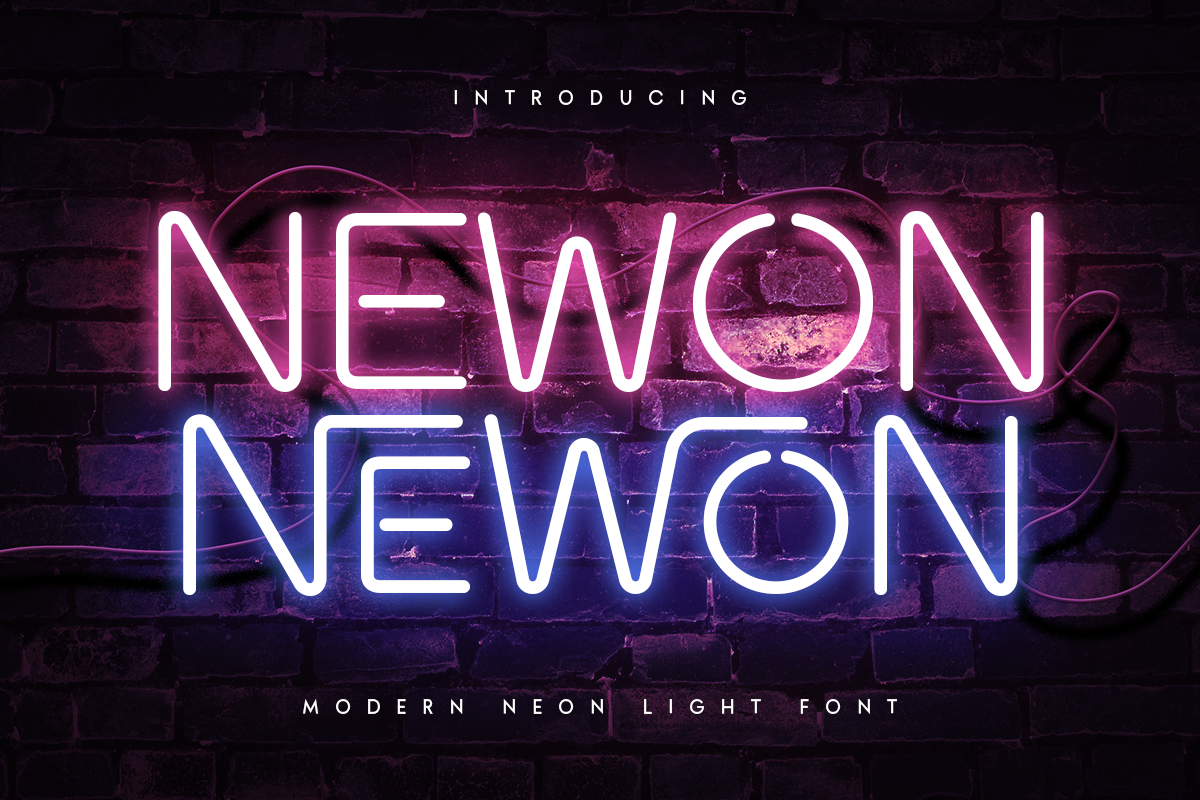
Newon is a unique modern neon light font that adds a glowing touch to your typography projects. Featuring floating letterforms and a variety of ligatures, Newon is ideal for headlines, titles, and standout typographic applications. If you want to see your chosen font in action before committing to a full design, Magic Hour AI image generator lets you generate neon-styled visuals from a text prompt in seconds.
2. Clubing – Neon Light Party Font
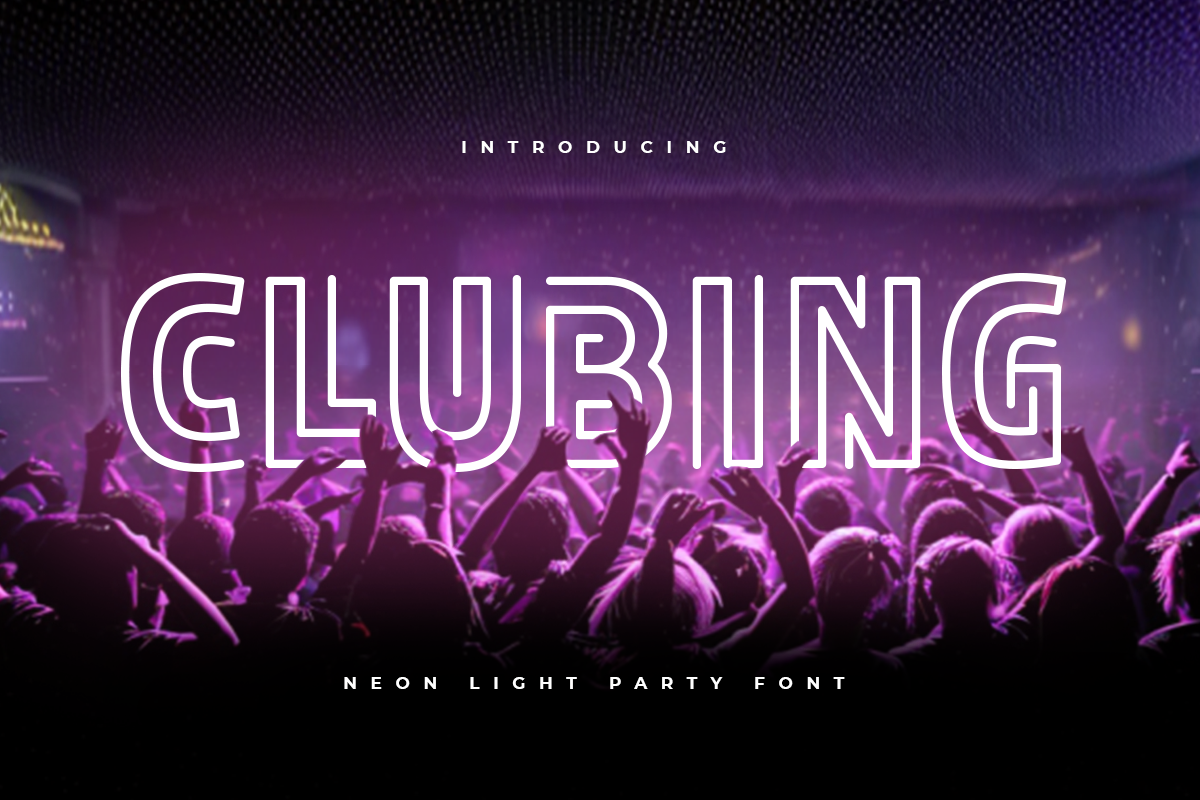
Clubing is a sci-fi inspired neon font filled with futuristic energy, perfect for creating bold and vibrant designs. It works especially well for natural neon visuals, striking graphic content, dynamic headlines, and lively posters.
3. Flare – Neon Light Party Font
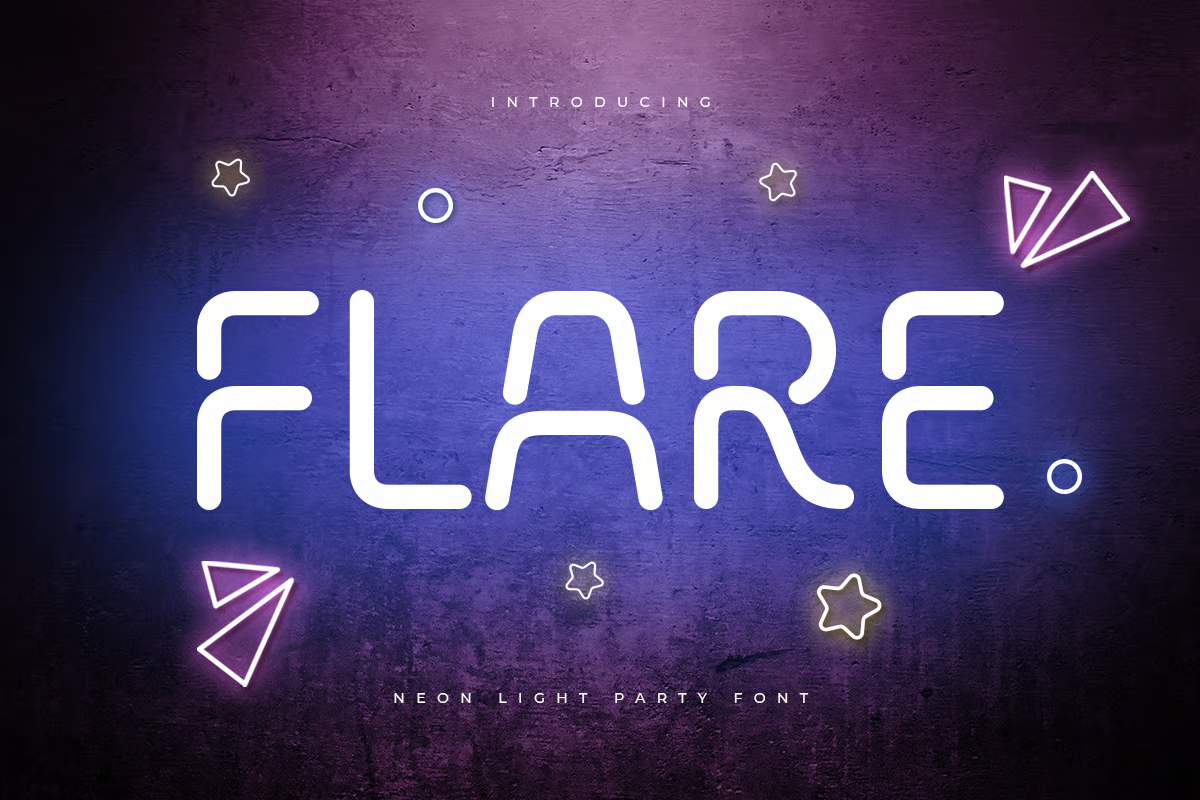
Flare is a captivating neon font with a bold yet elegant design. Its balance of strength and refinement makes it perfect for shop signage and event banners. Designed to deliver a stylish glow effect without being overwhelming, Flare offers a clean retro neon aesthetic that performs beautifully in bold usage.
4. Route – Neon Light Party Font
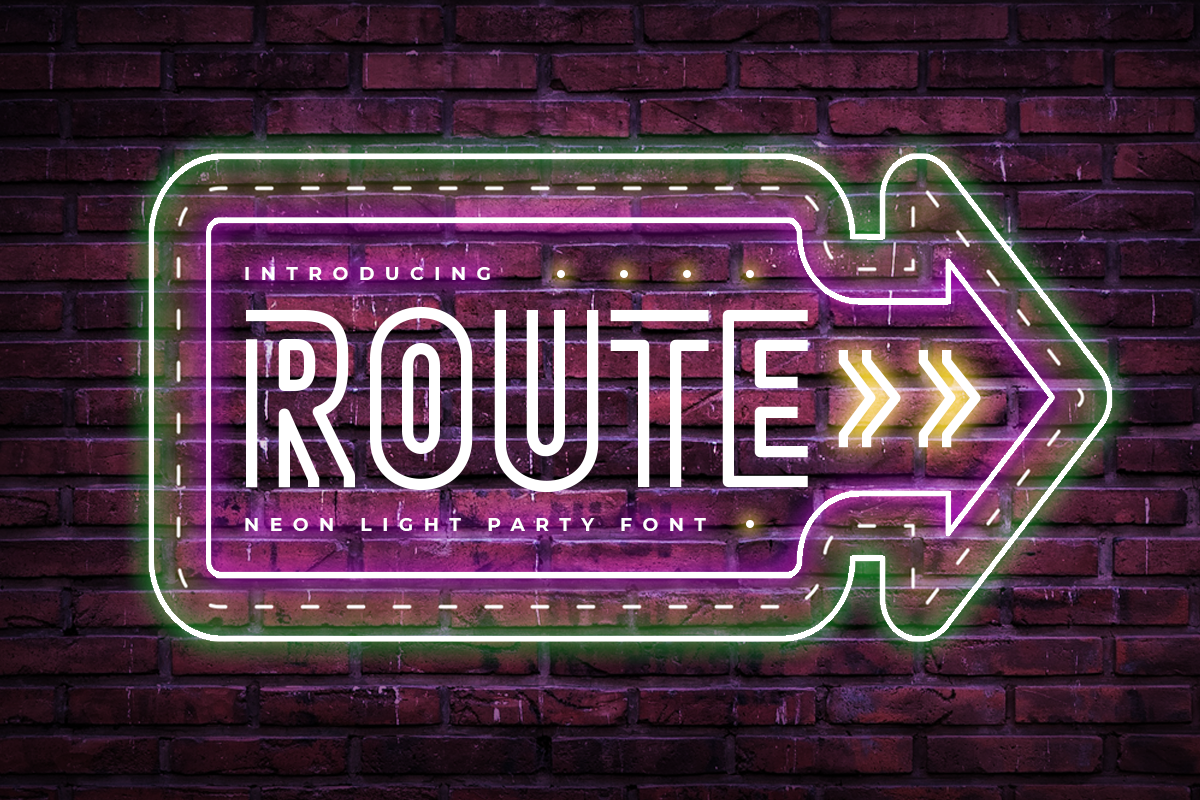
ROUTE is a retro-inspired font influenced by 1980s aesthetics and classic neon signage. Its bold uppercase letters are backlit to create a mesmerizing, attention-grabbing visual effect. This font is ideal for titles, posters, t-shirts, and other statement-driven designs.
5. Party – Modern Fun Neon Font
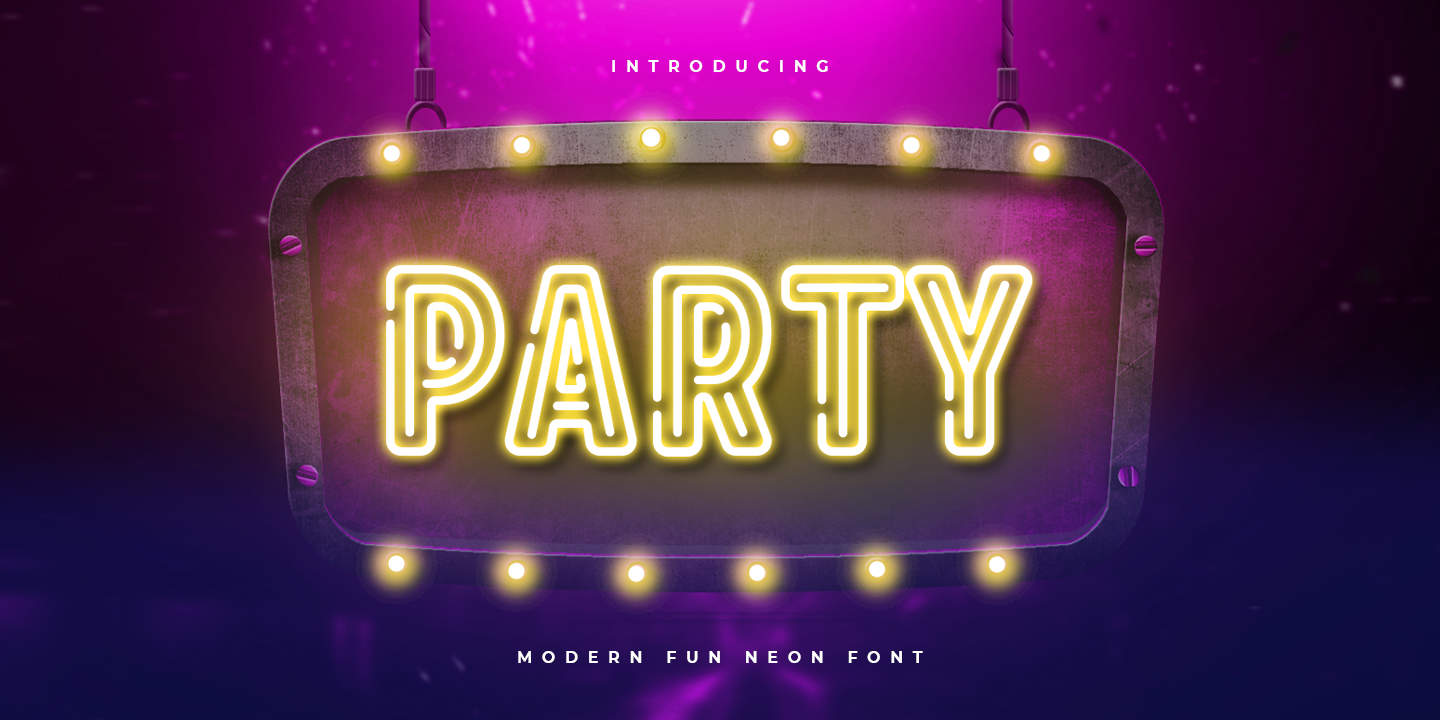
Party is a neon font created for event, party, and techno branding needs, featuring a fun and cheerful style without sacrificing visual impact. This serif display font with moderate contrast is perfect for branding projects, logos, packaging, social media posts, advertisements, labels, invitations, stationery, and any project that requires high legibility.
6. Glowing – Neon Light Party Font
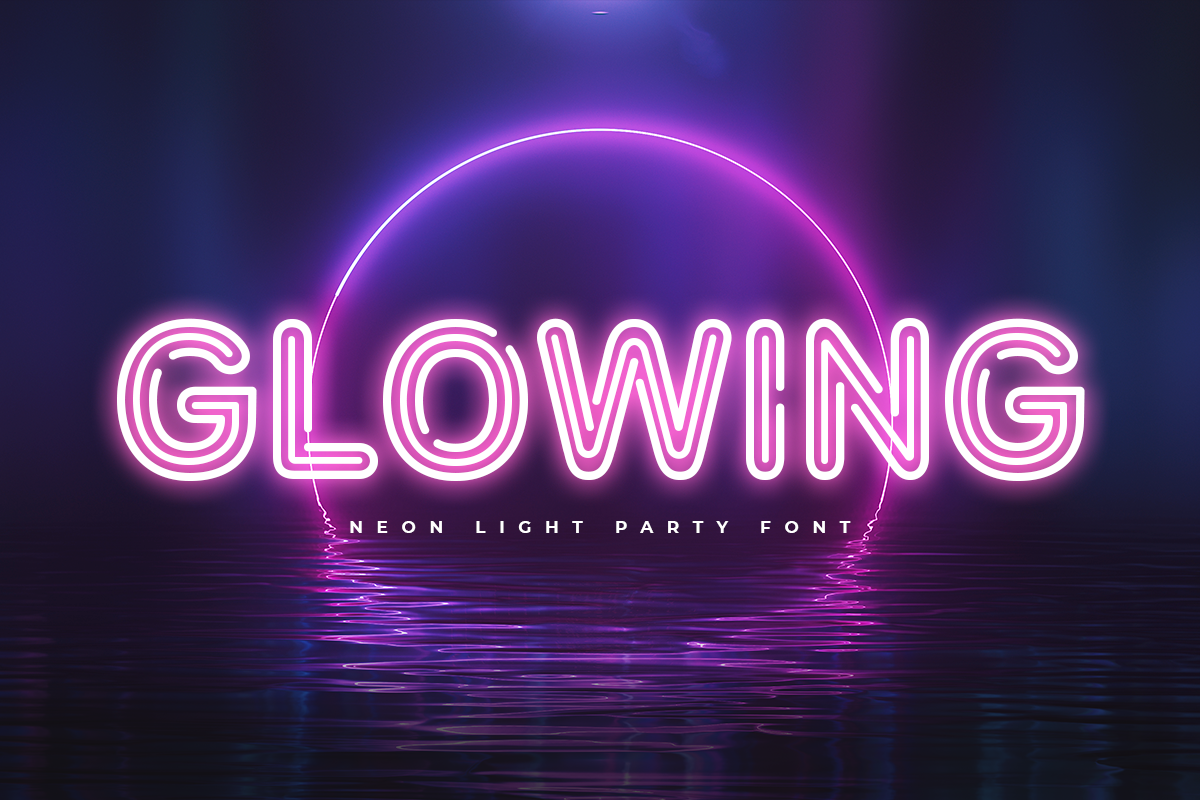
Glowing is a versatile neon party font featuring modern inline shapes that add distinct character to your designs. With dynamic neon-inspired letterforms, it is specially crafted for designers who need bold, standout titles and impactful headlines.
7. Swirl – Neon Light Party Font
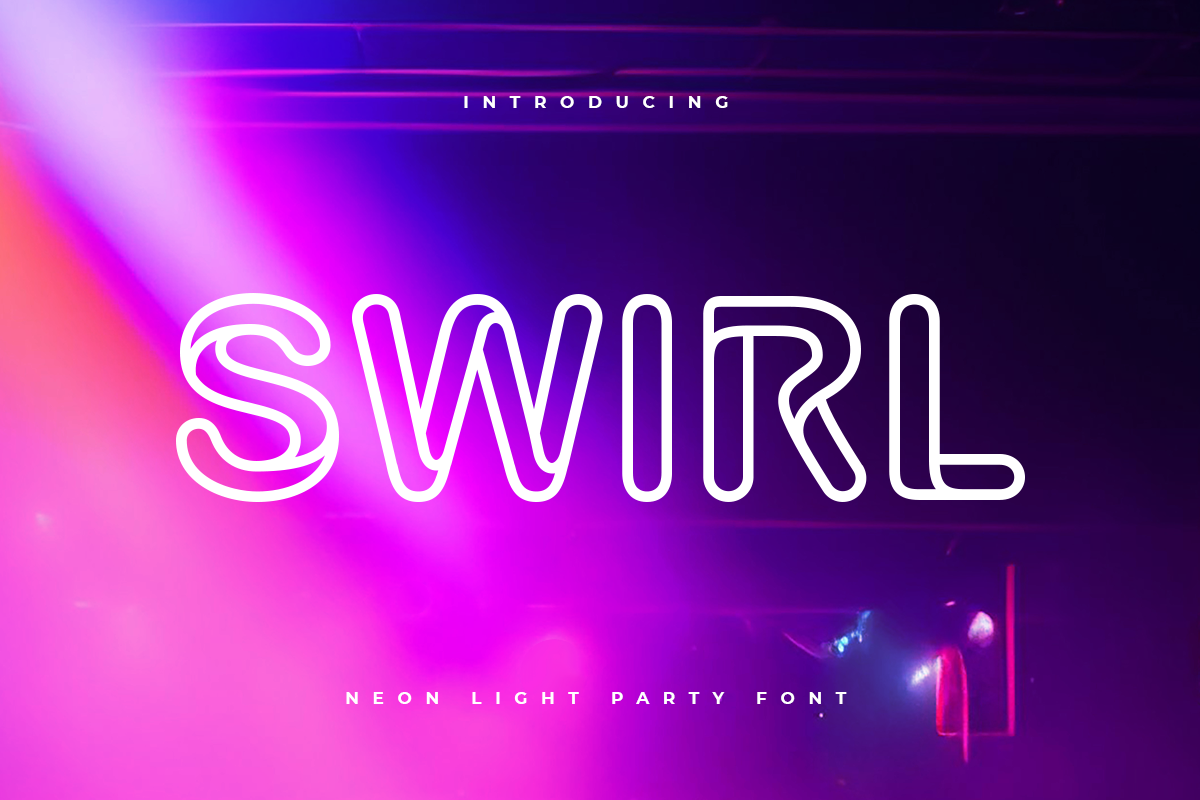
Swirl brings vibrant nostalgia to your projects with retro-inspired neon aesthetics. Designed for creatives who seek vintage charm with a modern twist, Swirl allows expressive typography through dynamic visual potential and intricate detailing, creating an artistic and captivating atmosphere.
8. Nighties – Neon Light Party Font
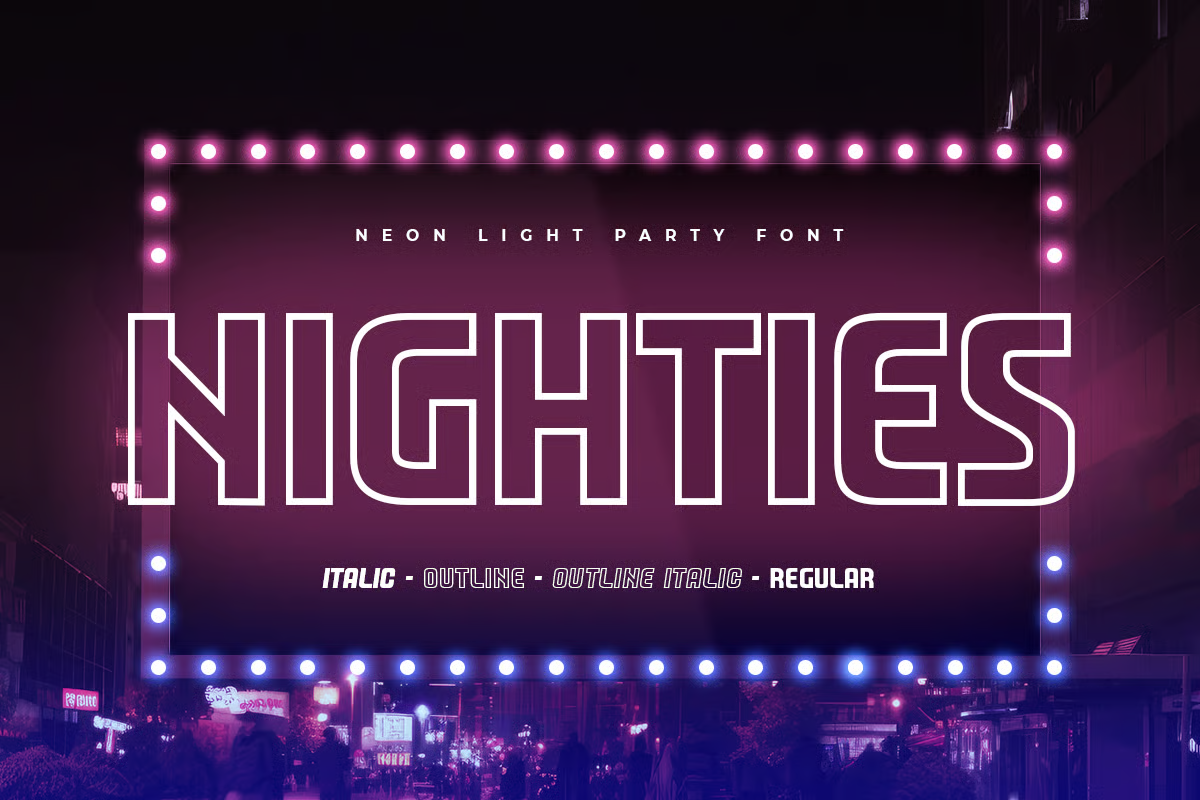
Nighties is a neon font designed to help designers digitally recreate traditional handwritten styles. With a strong retro nightlife influence, it evokes classic neon eras while remaining visually relevant today. Its outline style makes it ideal for music promotions, movie titles, YouTube thumbnails, and concert posters.
9. Neon Light – Futuristic Neon Font
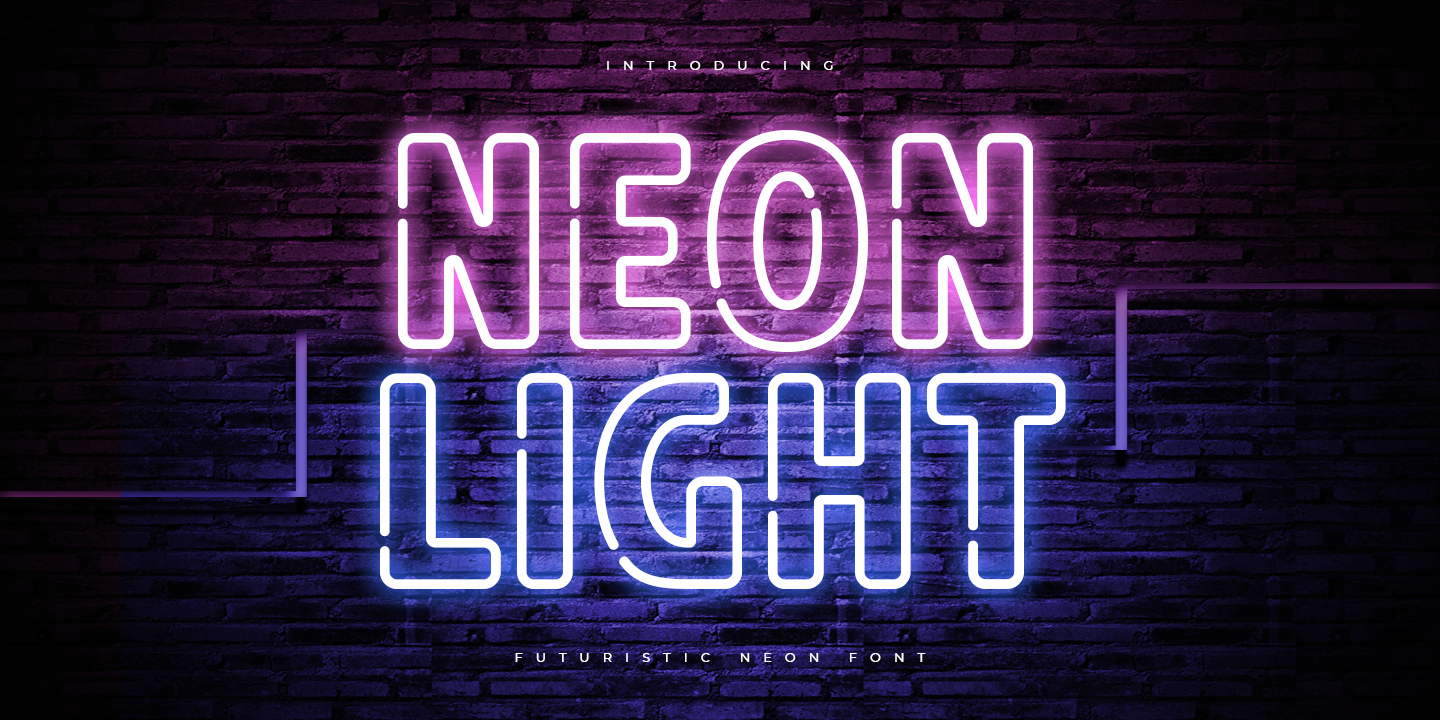
Neon Light features bold lines and smooth curves enhanced by bright glowing effects, delivering a dynamic and engaging appearance. Its vibrant color potential makes it perfect for attention-grabbing designs that want a neon look without excessive visual complexity.
10. Ranos – Neon Light Party Font
Ranos is a futuristic typeface that captures the essence of the techno–sci-fi genre. With compact construction and neon-inspired elements, it stands out as a bold choice for designers aiming to create modern, high-impact visuals. The letterforms are solid and confident, with clean and consistent glow effects.
A: Cyan and magenta remain a classic neon pairing, while premium combinations such as lime with warm orange or icy blue with violet offer a more refined and modern look.
Using neon fonts is one of the most effective ways to introduce an electric and futuristic feel into any design. They are perfect for adding cinematic impact to brand visuals, whether for marketing materials or long-term branding initiatives. Neon fonts are not just retro. When paired with clean layouts and controlled lighting effects, they feel modern, cinematic, and highly impactful.